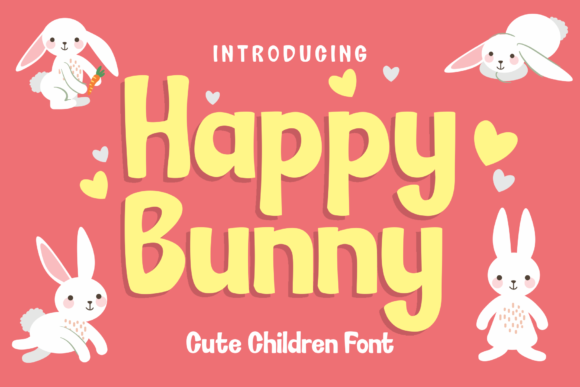
**Embark on a typographic adventure with the enchanting Happy Bunny Font, a captivating display font that will ignite your creativity.**
Crafted with meticulous precision, Happy Bunny Font exudes playfulness and authenticity, making it the perfect companion for those seeking to add a touch of whimsy to their designs. Unleash your imagination and let this charming font bring your creations to life.
Designed with a captivating chunky letter style, Happy Bunny Font is an ideal choice for children's activities and school projects. Its playful personality is sure to capture the hearts of young and old alike, creating a lasting impression that will make your designs stand out from the crowd.
But Happy Bunny Font's versatility extends far beyond children's creations. Its unique charm adds a touch of whimsy to any project, from invitations and social media graphics to posters and flyers. Whether you're a seasoned graphic designer or just starting out, Happy Bunny Font is the perfect tool to elevate your designs to new heights.